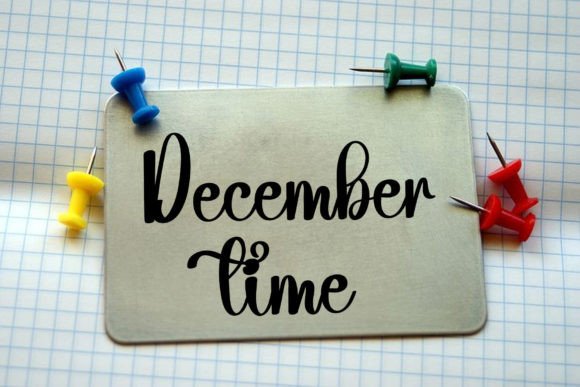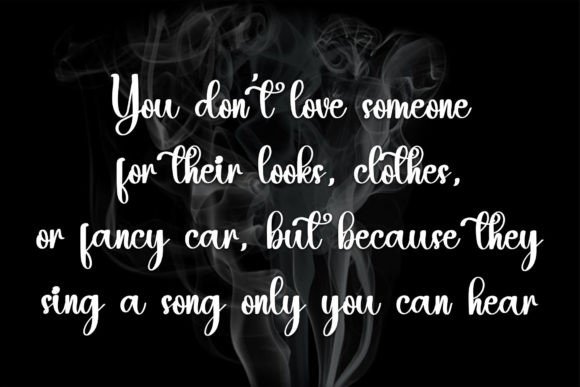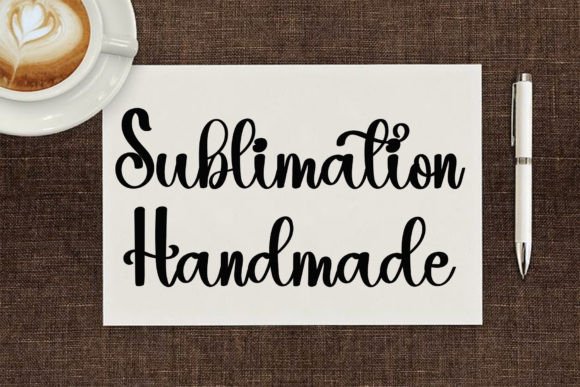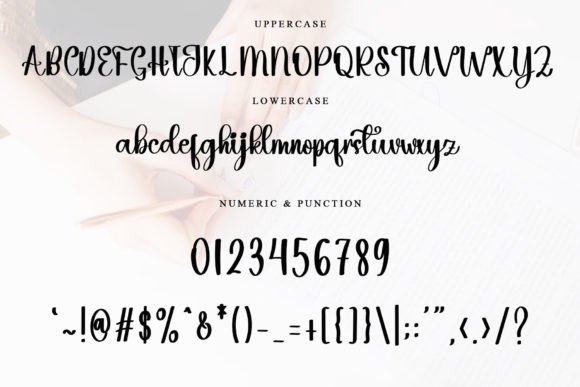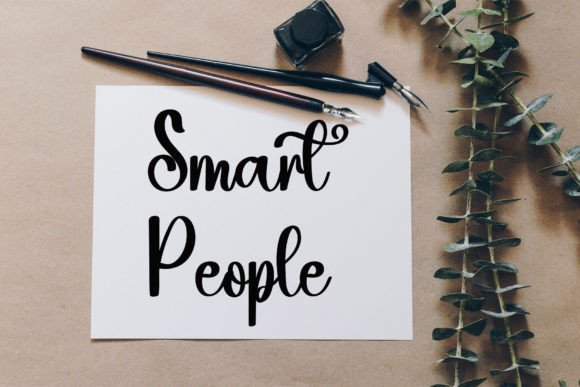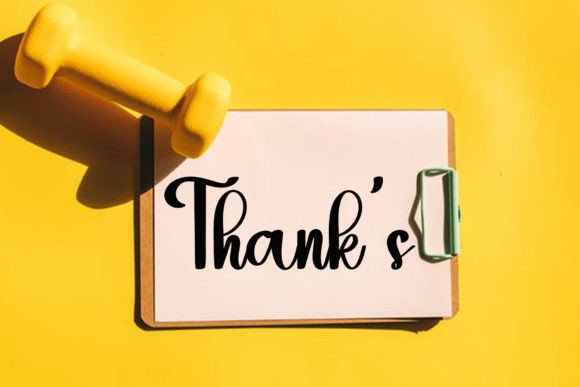
Greeting Signature Font: The Perfect Addition to Your Design Arsenal
Are you a designer or crafter looking for a font that can add a personal touch to your creations? Look no further than the Greeting Signature Font. This sweet and friendly handwritten font is perfect for a wide range of designs, from greeting cards to invitations, and even digital projects. In this article, we’ll dive into the features and benefits of the Greeting Signature Font and explore how it can elevate your designs.
What is Greeting Signature Font?
Greeting Signature Font is a beautifully crafted handwritten font that exudes warmth and friendliness. Its natural and unique style makes it incredibly versatile, allowing you to use it in a variety of designs. The font’s smooth and flowing lines give it a personal feel, making it perfect for projects where you want to add a touch of personality.
Key Features of Greeting Signature Font
- Handwritten style: Greeting Signature Font has a beautiful handwritten style that gives it a personal and unique feel.
- Natural and fluid lines: The font’s smooth and flowing lines make it perfect for designs where you want to add a touch of elegance.
- Versatile: Greeting Signature Font can be used in a wide range of designs, from greeting cards to invitations, and even digital projects.
- Easy to read: Despite its handwritten style, Greeting Signature Font is easy to read, making it perfect for designs where you need to convey a message.
Benefits of Using Greeting Signature Font
So, why should you choose Greeting Signature Font for your designs? Here are just a few benefits of using this amazing font:
- Adds a personal touch: Greeting Signature Font adds a personal touch to your designs, making them stand out from the crowd.
- Perfect for crafty projects: If you’re a crafter, Greeting Signature Font is perfect for adding a personal touch to your projects, from scrapbooking to card making.
- Great for digital projects: Greeting Signature Font is not just limited to print projects. It’s also perfect for digital projects, such as social media graphics and blog posts.
- Unique and creative: Greeting Signature Font is a unique and creative font that will add a touch of personality to your designs.
How to Use Greeting Signature Font
Using Greeting Signature Font is easy. Here are a few tips to get you started:
- Pair it with other fonts: Greeting Signature Font pairs well with other fonts, such as sans serif fonts and script fonts.
- Experiment with colors: Greeting Signature Font looks great in a variety of colors, from bright and bold to soft and pastel.
- Use it for headings and titles: Greeting Signature Font is perfect for headings and titles, adding a touch of personality to your designs.
In conclusion, Greeting Signature Font is a sweet and friendly handwritten font that is perfect for a wide range of designs. Its natural and unique style makes it incredibly versatile, and its smooth and flowing lines give it a personal feel. Whether you’re a designer or crafter, Greeting Signature Font is a great addition to your design arsenal. So why not give it a try and see how it can elevate your designs?
The only limit to what you can create with Greeting Signature Font is your imagination! So don’t be afraid to experiment and try new things. With Greeting Signature Font, the possibilities are endless.